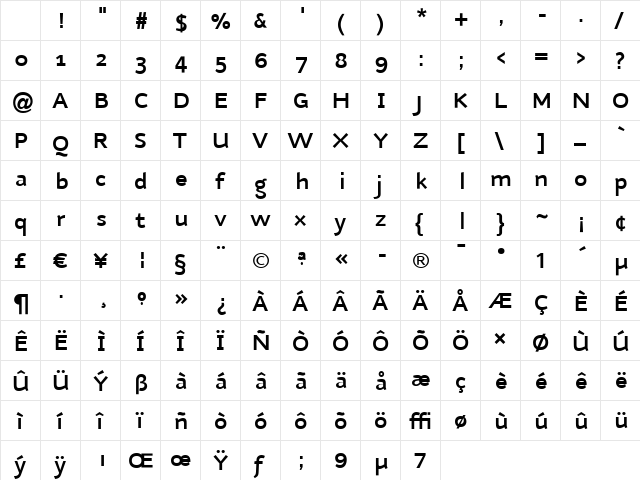
Complete Nubian-DemiBold glyph index. Displaying only characters natively supported by Nubian-DemiBold font.
Nubian-DemiBold is a composed and adaptable typeface that performs quietly and consistently across a wide range of design contexts. Its bold stroke weight gives it real presence on the page.
Who designed the Nubian-DemiBold font?
This font was published by G-Type Designed and digitized by Nick Cooke. Check the technical specs section for copyright and designer details.